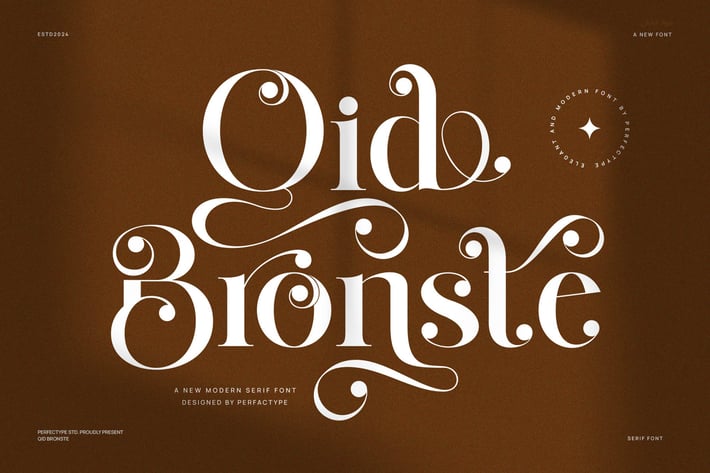
Qid Bronste Elegant Serif Font Typeface
Qid Bronste Elegant Serif is a refined and contemporary typeface that merges modern elegance with structured precision. Designed with clean lines, balanced proportions, and a touch of sophistication, this font is ideal for those seeking a professional yet stylish typographic solution. Whether applied to corporate branding, magazine layouts, or high-end product packaging, Qid Bronste commands attention with its polished and versatile character.
With its well-crafted letterforms and subtle geometric influences, this font maintains both readability and visual appeal across a wide range of applications. From bold logos and sleek website headers to engaging esports graphics and stylish brochures, Qid Bronste adapts effortlessly to various design needs. Its structured yet graceful presence makes it a perfect choice for industries such as fashion, technology, food, and lifestyle.
This typeface excels in delivering a contemporary yet timeless aesthetic, making it a reliable choice for agencies, brands, and creatives aiming for a refined visual identity. Its harmonious letter spacing and smooth flow allow for elegant headlines as well as easy-to-read body text, ensuring versatility across digital and print media.
For designers looking to elevate their projects with a modern serif that embodies both strength and elegance, Qid Bronste is the ultimate choice. Let your designs make a lasting impression with this sophisticated yet approachable font, perfect for creating a bold yet graceful statement.